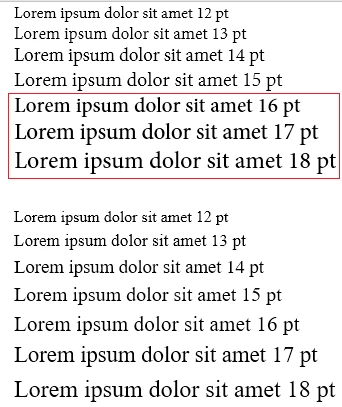
Different font thickness between InDesign and Word
I'm currently work on text, which intented to be read on screen. For that reason, body text should be quite large, 15-16 points.
I use both InDesign CS6 and Word 2016 for this project.
As I discovered, at some specific sizes, Adobe fonts looks different in InDesign and Word. I don't understand why. (Any help is welcome).
I tested with Minion Pro, Arno Pro, Garamond Premiere Pro and Times New Roman (the last is TTF, shipped with Windows).
Picture 1: InDesign CS6. Top - Minion Pro, bottom - Times New Roman. There are no problems here, both fonts looks good in all sizes.
Picture 2: Word 2016 (or recent LibreOffice Writer, no difference). Top - Minion Pro, bottom - Times New Roman. As you can see, at 16 points Minion dramatically increases it's thickness.
Why I have such unpleasant look in Word and LibreOffice? How I could fix it?
Word and Writer works identically, i.e. at 16 points Minion change it look it both programs. That's why, form my point of view, both programs works as they should (correctly), and the problem is somewhere in Adobe fonts (Minion, Arno, Garamond Premiere). And that's why I ask about described problem at Adobe forums, instead of somewhere at Microsoft one's.
... Well, as I discovered during writing this post, the described problem is applicable to almost any serif OTF fonts. But I still think there are a lot of qualified professional typographers, who can explain why it occurs and how it could be fixed.
Summary: TTF fonts - looks good at all sizes. OTF fonts - increases it's thickness at 16 points and above.